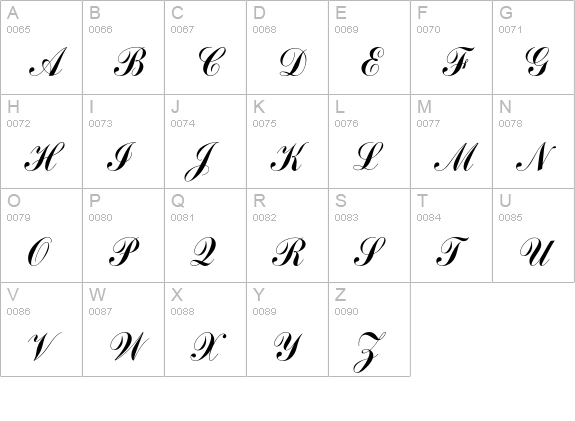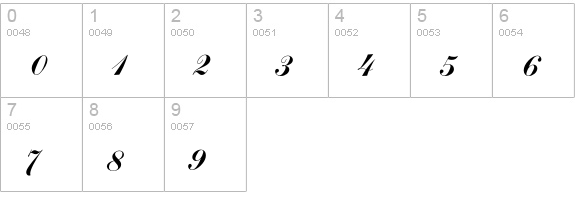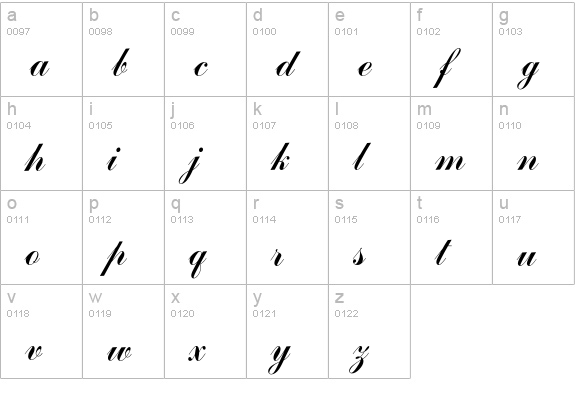
CommercialScriptEF font is a stylish and elegant script typeface that exudes sophistication and charm. With its fluid lines and graceful curves, this font is perfect for adding a touch of class to any project. Whether you're designing a wedding invitation, a logo, or a branding project, CommercialScriptEF will elevate your design to the next level. The best part? CommercialScriptEF is available for free download at FontsMarket.com. That's right, you can access this beautiful font at no cost and use it in your personal and commercial projects. Don't miss out on the opportunity to enhance your designs with the timeless beauty of CommercialScriptEF font. Download it today and let your creativity shine!